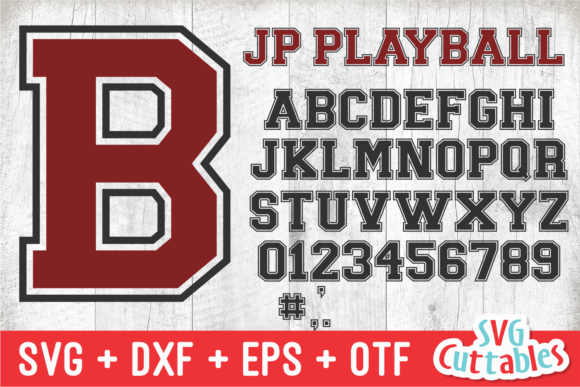
JP Play Ball Font: The Ultimate Choice for Sporty and Collegiate Designs
Are you looking for a font that can add a touch of athleticism and retro style to your designs? Look no further than the JP Play Ball font. This cool and versatile display font is perfect for collegiate or sporty designs, and its possibilities are endless. In this article, we’ll dive into the world of JP Play Ball font, exploring its features, benefits, and uses.
What is JP Play Ball Font?
JP Play Ball font is a display font designed to evoke the spirit of athleticism and retro style. Its unique and bold lettering makes it perfect for headlines, titles, and short texts. The font is highly legible, even at large sizes, making it ideal for posters, billboards, and digital displays.
Key Features of JP Play Ball Font
- Retro Style: JP Play Ball font boasts a classic, retro look that’s reminiscent of vintage sports equipment and athletic wear.
- Athletic Feel: The font’s bold and dynamic lettering gives it an athletic feel that’s perfect for sports-related designs.
- Highly Legible: The font is designed to be highly legible, even at large sizes, making it perfect for posters, billboards, and digital displays.
- Versatile: JP Play Ball font can be used for a wide range of designs, from collegiate and sporty to retro and vintage.
Benefits of Using JP Play Ball Font
So, why choose JP Play Ball font for your designs? Here are just a few benefits of using this amazing font:
- Adds a Touch of Athleticism: JP Play Ball font adds a touch of athleticism to your designs, making it perfect for sports-related brands and teams.
- Evokes a Retro Feel: The font’s retro style evokes a sense of nostalgia and classic style, making it perfect for vintage-inspired designs.
- Highly Versatile: JP Play Ball font can be used for a wide range of designs, from posters and billboards to digital displays and apparel.
- Easy to Read: The font’s high legibility makes it easy to read, even at large sizes.
Uses of JP Play Ball Font
JP Play Ball font is incredibly versatile, and its uses are endless. Here are just a few ideas to get you started:
- Sports Teams: Use JP Play Ball font to create logos, jerseys, and other branding materials for sports teams.
- Collegiate Designs: The font is perfect for collegiate designs, including posters, flyers, and social media graphics.
- Retro-Inspired Designs: Use JP Play Ball font to create retro-inspired designs, including posters, packaging, and advertising materials.
- Athletic Events: The font is perfect for athletic events, including marathons, triathlons, and other sports competitions.
Tips for Using JP Play Ball Font
Here are a few tips for using JP Play Ball font:
- Use it Boldly: JP Play Ball font is designed to be used boldly, so don’t be afraid to experiment with large sizes and bold colors.
- Pair it with Other Fonts: The font pairs well with other fonts, including sans-serif and serif fonts.
- Experiment with Colors: JP Play Ball font looks great in a variety of colors, so experiment with different color schemes to find the one that works best for your design.
In conclusion, JP Play Ball font is a cool, retro-styled, and athletic display font that’s perfect for collegiate or sporty designs. Its highly legible and versatile design makes it ideal for a wide range of uses, from posters and billboards to digital displays and apparel. With its bold and dynamic lettering, JP Play Ball font is sure to add a touch of athleticism and retro style to your designs.